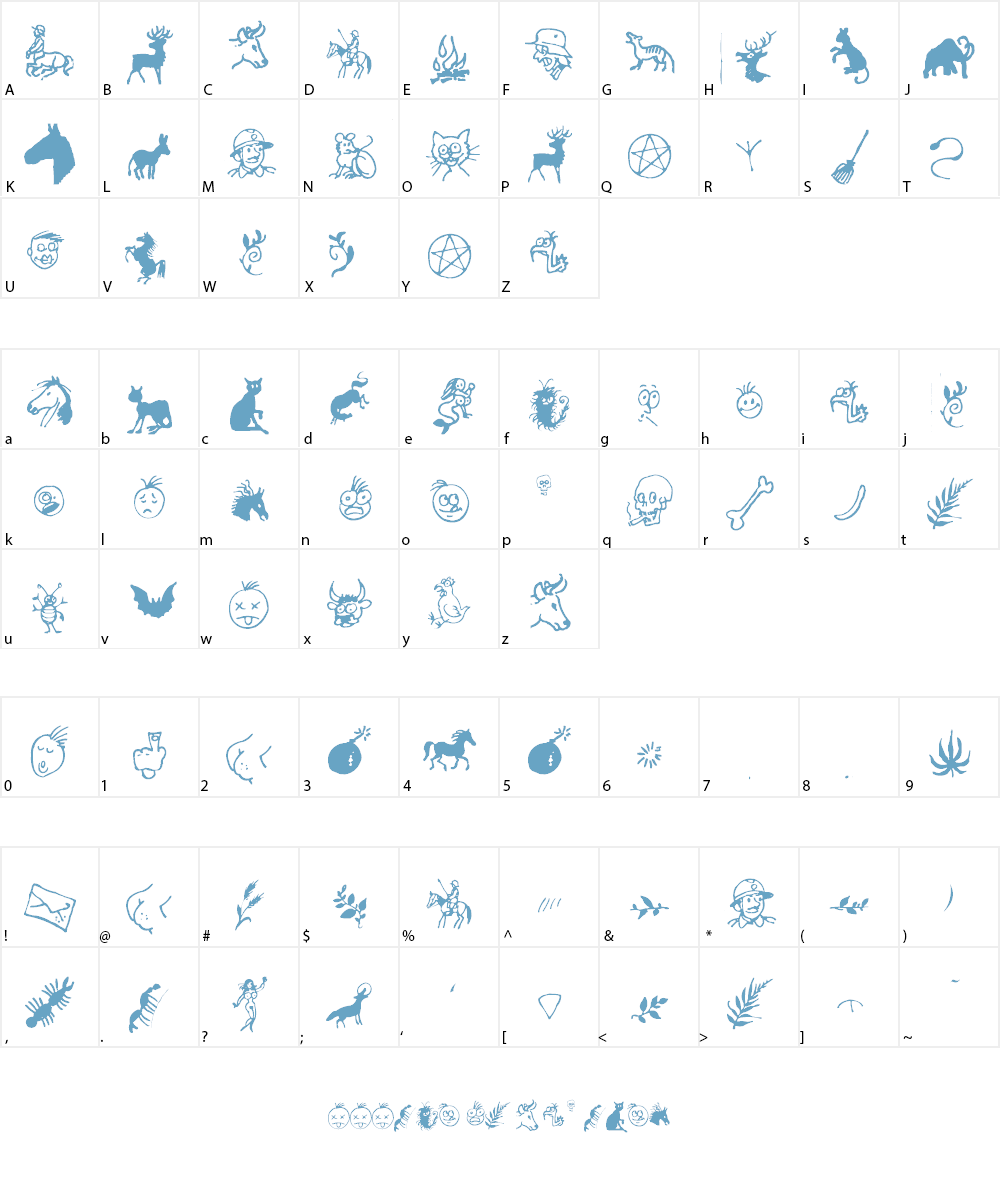
Abgefahrene "Dings" mit einem Querschnitt von kleinen Sauereien die typisch für mich sind. Ideal zum Ausschmücken von Briefen usw.
Crazy "Dings" with a small cross-section of smut that is typical for me. Ideal to decorate letters, etc.